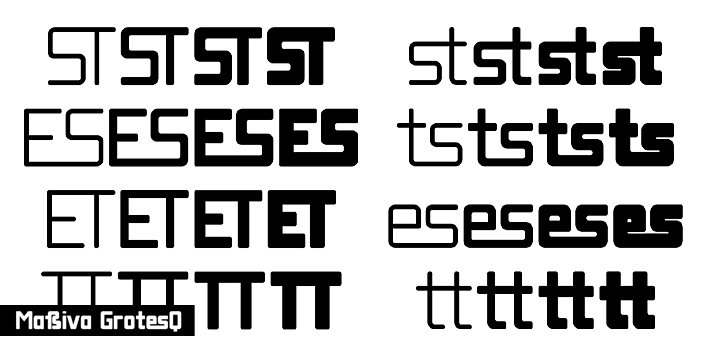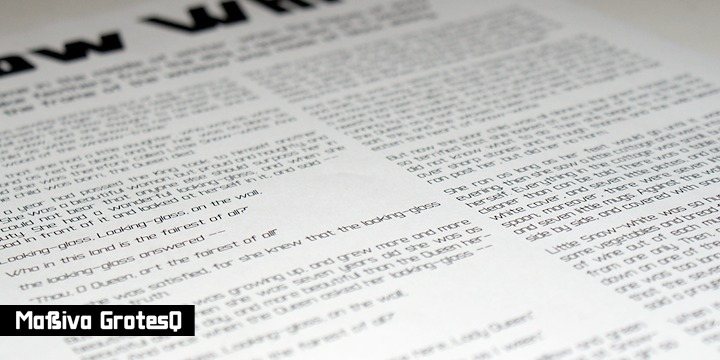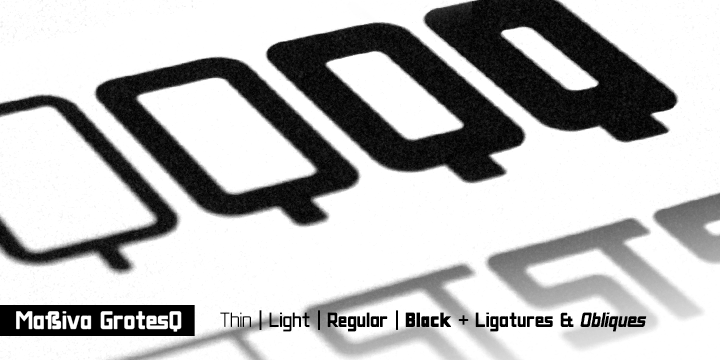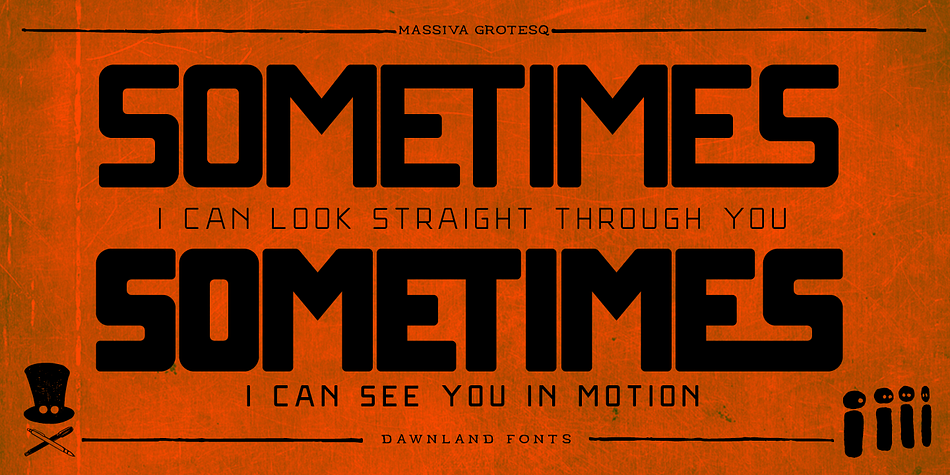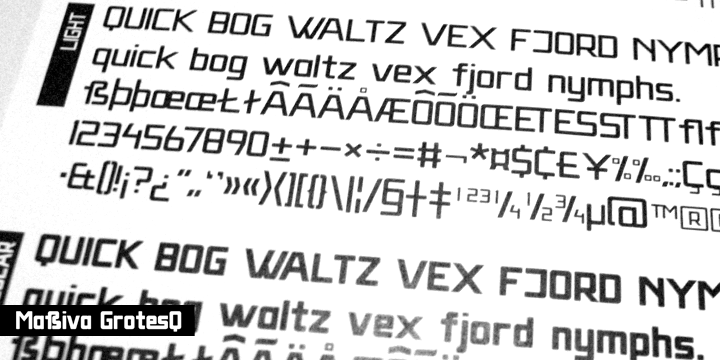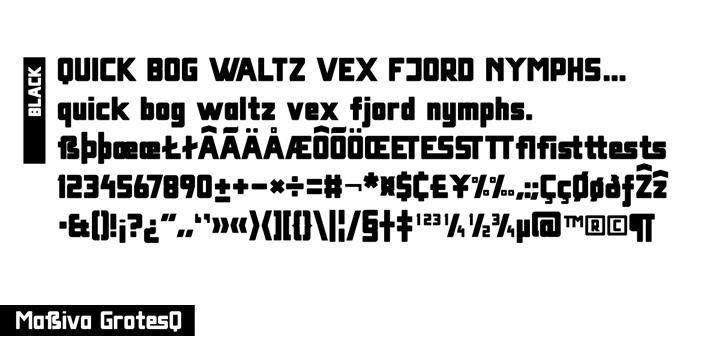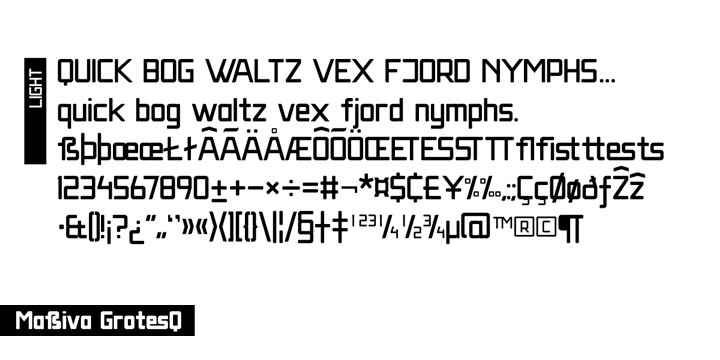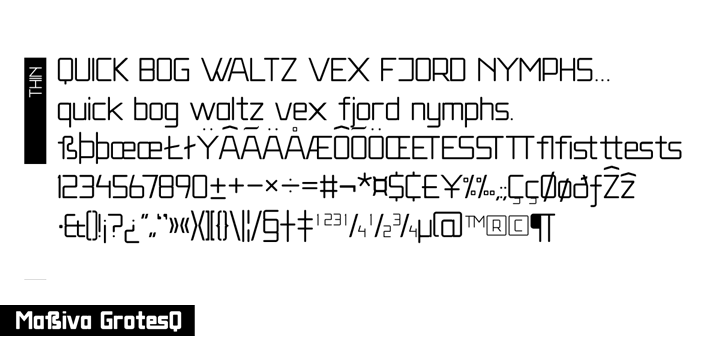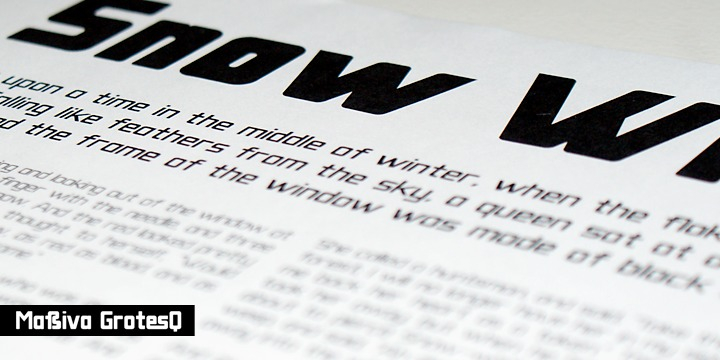
Massiva GrotesQ is a display and display sans font family. This typeface has eight styles and was published by Dawnland.
A massive grotesque in four weights + obliques! Perfect for your massive poster or news paper headlines as well as your massive text chunks. The four weights elegantly complete each other as the obliques add tension to your work.
Each font consists of 241 glyph character set with beautiful ligatures for ff ffi ffl fi fl st ts es tt ST ET TT and ES.